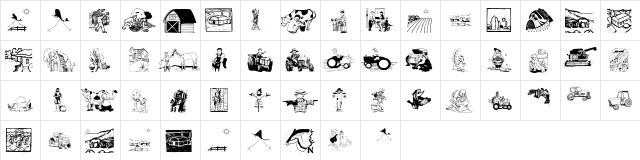
FarmersLife Regular Font Preview
FarmersLife Regular
Design Context for FarmersLife Typeface
FarmersLife is a composed and adaptable typeface that performs quietly and consistently across a wide range of design contexts.